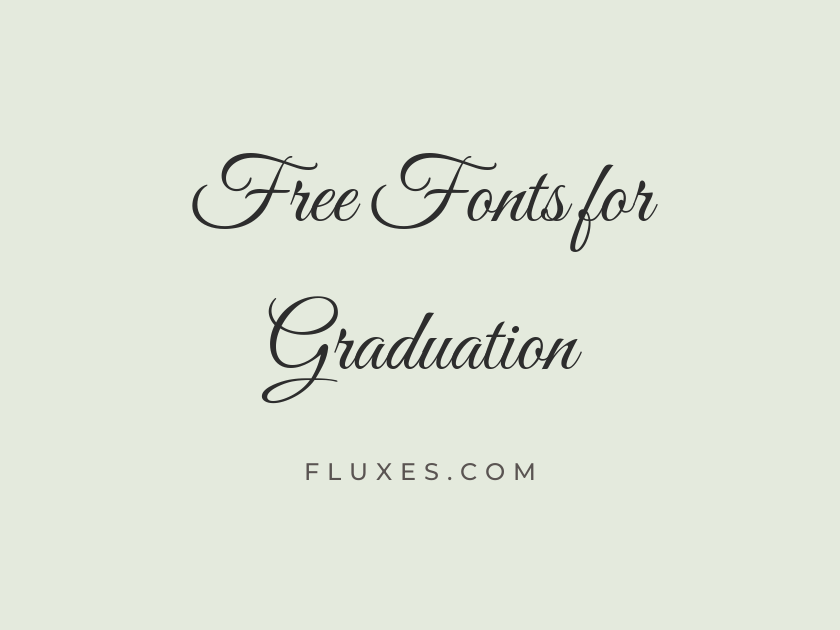
64 Best Free Fonts for Graduation
Graduation season calls for a wide range of type moods: the formal elegance of a diploma, the warmth of a handwritten yearbook note, the loud confidence of a “Class of” banner, and the crisp legibility of a printed ceremony program. Because these projects span invitations, certificates, social posts, yard signs, and slideshow captions, the best approach is to build a small type library rather than lean on one font for everything. Every option here is free on Google Fonts, so downloading and licensing for personal or commercial graduation projects is straightforward.
Whether you’re designing announcement cards, a commencement program, a diploma template, or a “congrats, grad” Instagram graphic, there’s a font below suited to the job.
1. Great Vibes
This is the script most people picture when they imagine a formal graduation announcement: tall ascenders, a confident slant, and enough flourish to feel celebratory without tipping into novelty. It reads beautifully at large sizes on invitations and diploma covers, though it should stay reserved for a headline or name rather than full sentences.
2. Alex Brush
Alex Brush has a looser, more brush-pen feel than most formal scripts, which makes it a good choice when you want elegance that still feels a little personal, like it was signed rather than printed.
3. Pinyon Script
Pinyon Script leans traditional and engraved, the kind of letterform you’d expect on an old university certificate. It pairs naturally with a small caps serif for supporting text on formal invitations.
4. Parisienne
Rounder and friendlier than the average formal script, Parisienne softens graduation stationery without losing sophistication. It works well for a graduate’s name on a party invite or a thank-you card.
5. Allura
Allura is a single-weight connecting script with delicate, thin strokes, best reserved for short phrases at generous point sizes. It gets muddy fast in print if scaled down too small, so save it for headlines.
6. Tangerine
Tangerine is one of the most delicate scripts on Google Fonts, with hairline strokes that feel handwritten and antique. It is gorgeous for a monogram or a single line on an invitation, but it needs a plain, uncluttered background to stay legible.
7. Rouge Script
Bolder and more casual than Pinyon or Great Vibes, Rouge Script has enough weight to work on darker backgrounds and photo overlays, which makes it handy for social media graduation posts.
8. Petit Formal Script
True to its name, this one leans stiffly formal and upright rather than swashy, closer to old formal penmanship than modern calligraphy. It suits traditional academic announcements where restraint matters more than flourish.
9. Mrs Saint Delafield
Mrs Saint Delafield reads like an actual signature, loose and slightly uneven in a way that feels authentic rather than templated. It’s a lovely choice for a closing line or a graduate’s name at the bottom of a card.
10. Herr Von Muellerhoff
This script carries ornate, old-world swashes that suit vintage or European-inspired graduation stationery. Use it sparingly, ideally on a single word or short phrase, since its elaborate loops fight for attention at longer lengths.
11. Sacramento
Sacramento trades formality for a light, breezy monoline script that still photographs well. It sits comfortably alongside a clean sans-serif on modern invitation layouts.
12. Dancing Script
Few free scripts are as versatile as Dancing Script. It comes in multiple weights, stays legible from headline size down to smaller captions, and works equally well on a printed program cover or a digital graduation card, making it one of the safer script choices for anyone new to pairing type.
13. Marck Script
Marck Script has a warm, rounded, almost childlike hand that suits graduations for younger students, like kindergarten or middle school moving-up ceremonies, better than a stiff formal script would.
14. Italianno
Extremely thin and ornamental, Italianno is best treated as decoration rather than a workhorse text font. A single word set large on an invitation cover is where it shines.
15. Berkshire Swash
Berkshire Swash is a display script with chunky, looping capitals that read more playful than formal. It’s a strong pick for a graduation party banner or T-shirt design that wants personality without full cursive delicacy.
For yard signs, banners, and party graphics, a single ultra-bold display font like Bebas Neue or Anton usually reads better from a distance than a script ever will.
With scripts for sentiment, serifs for tradition, bold display faces for celebration, and clean sans-serifs for practical details, there’s more than enough here to design an entire graduation season, from the first save-the-date to the diploma itself.